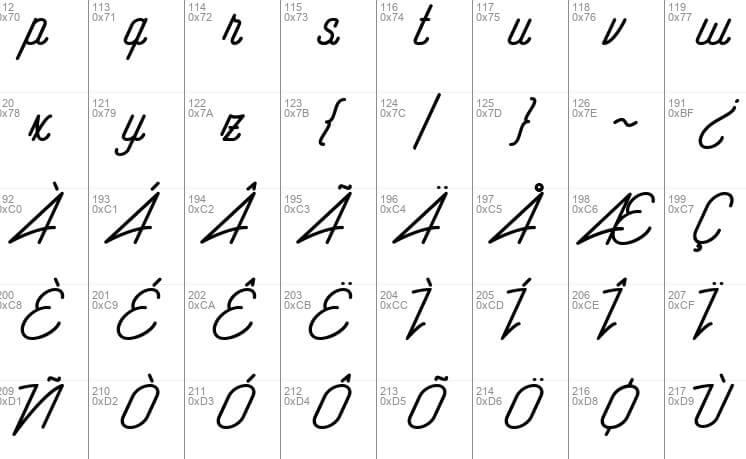
Rising Star Font
The Rising Star Font is an experimental typeface designed via a younger fashion designer. It is a narrow-line font to use for multi-cause. The significant color background is something to think about too.
Style Of The Rising Star Font Free